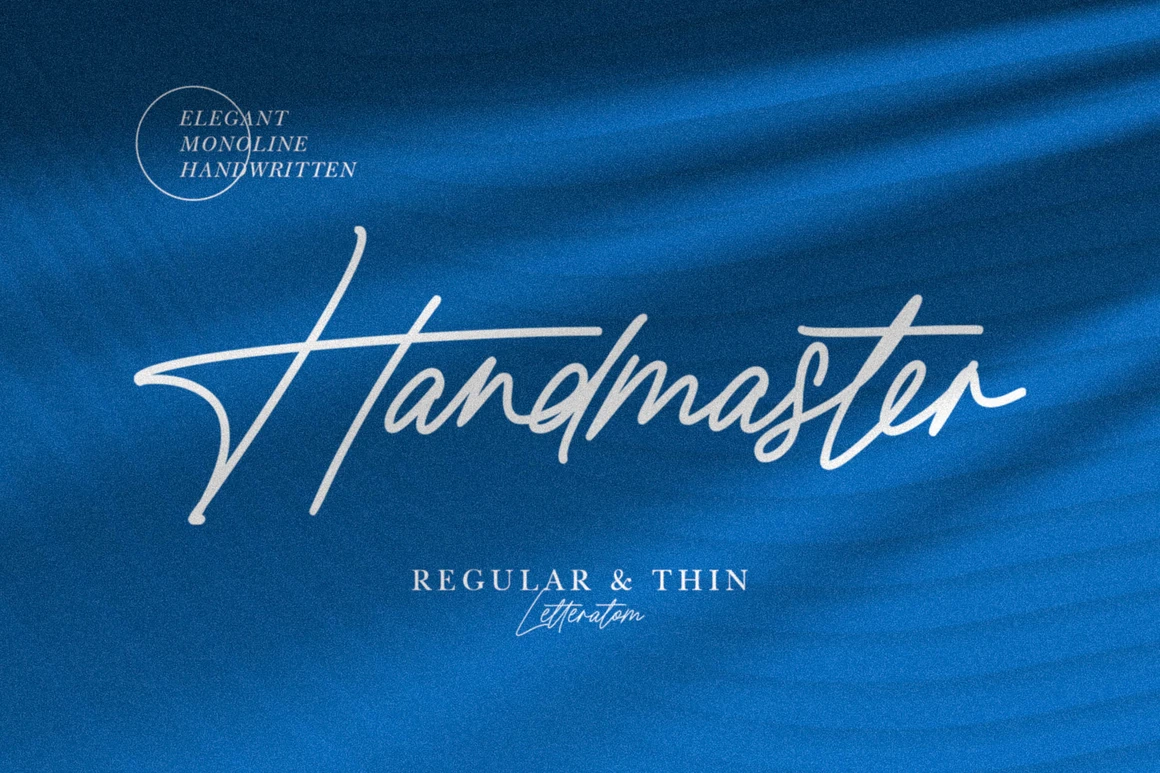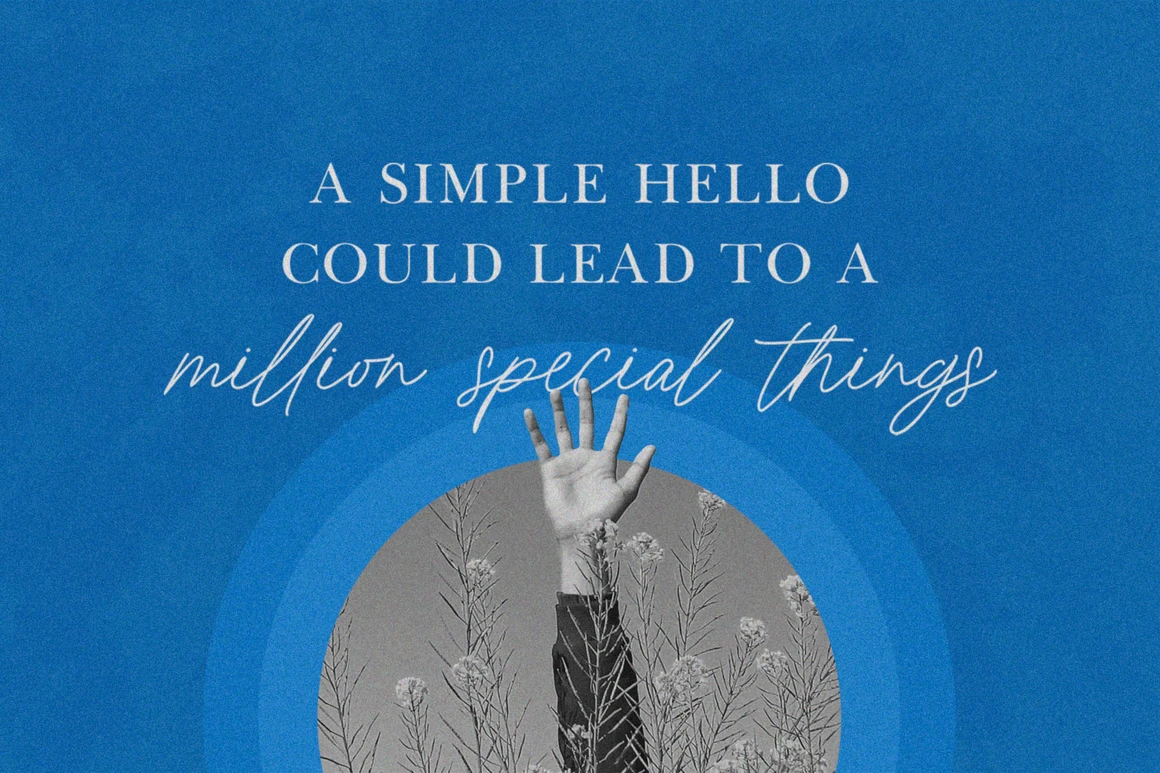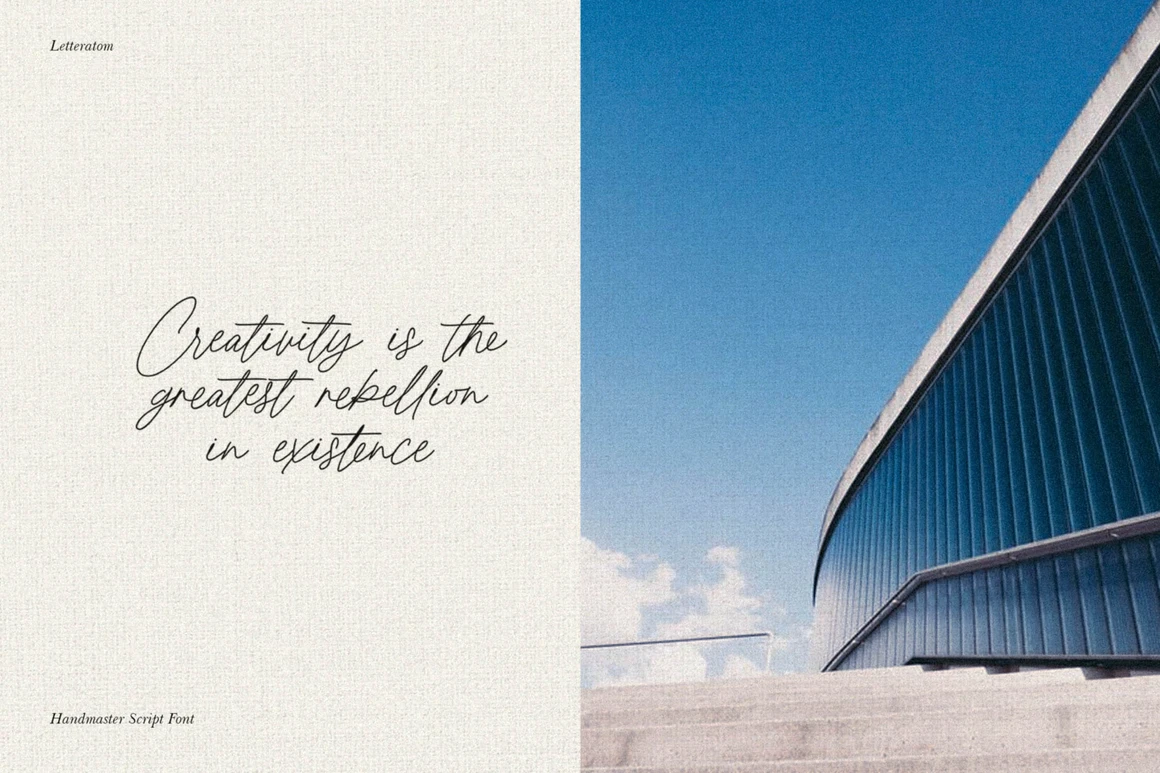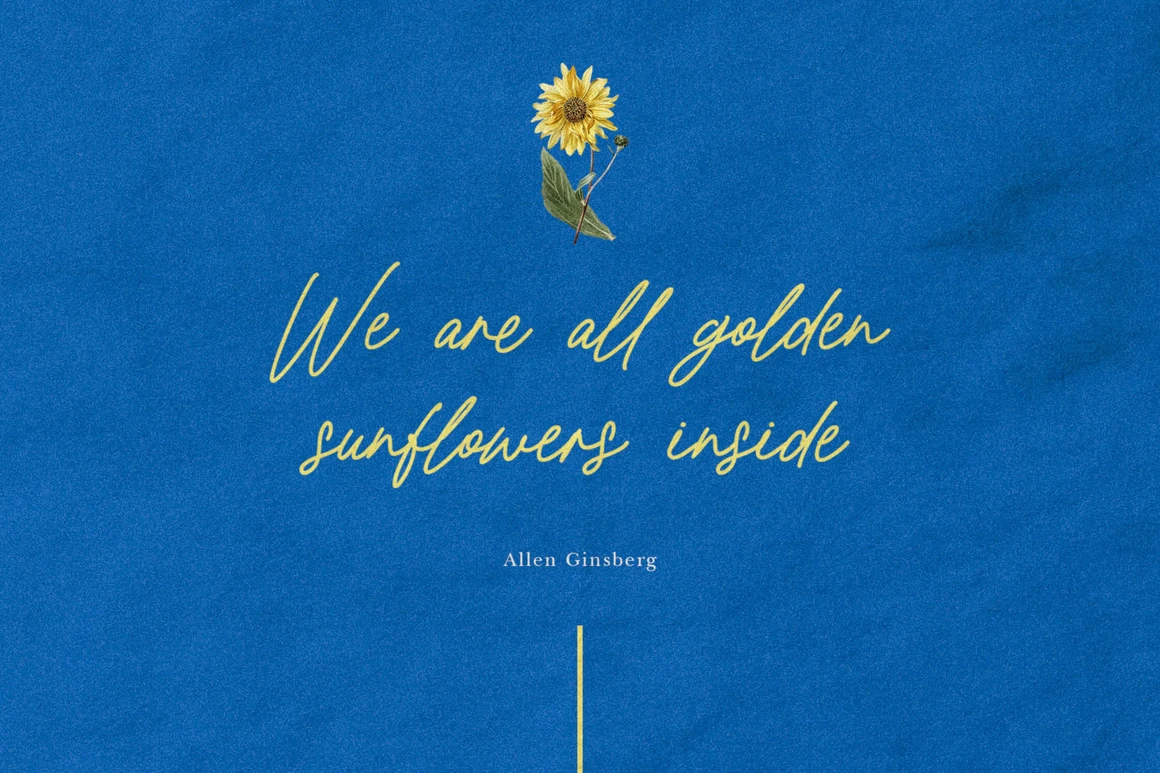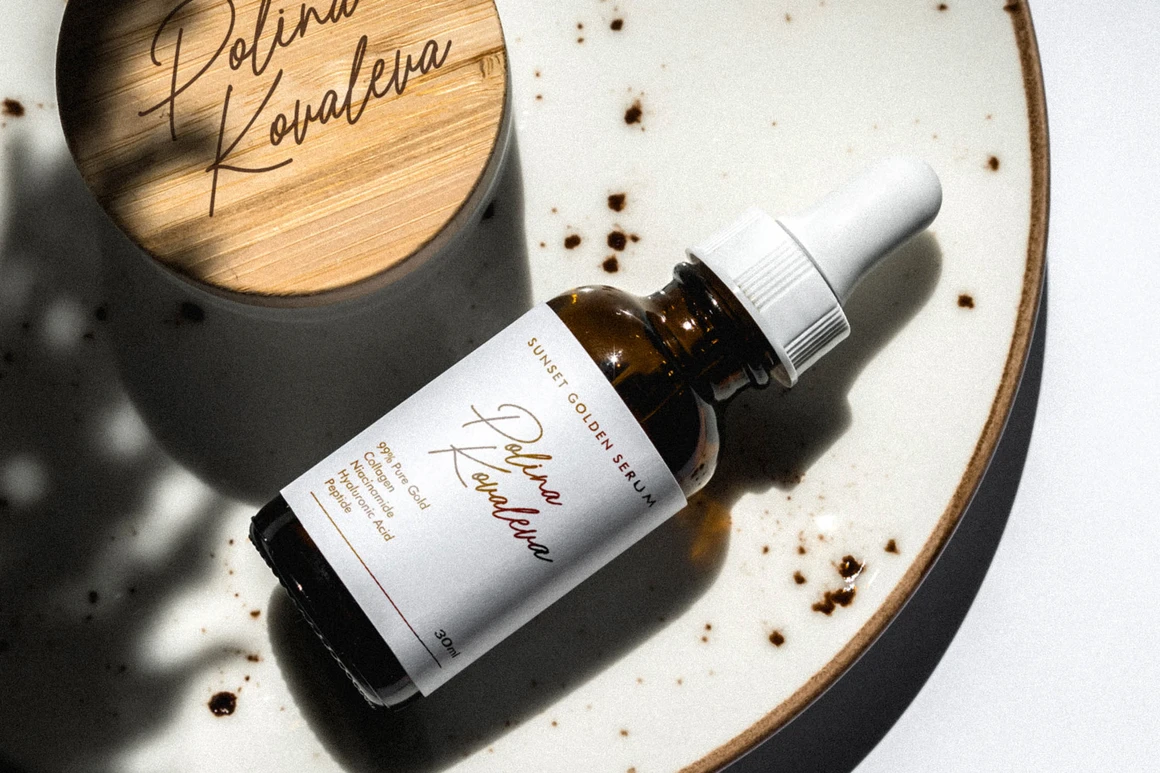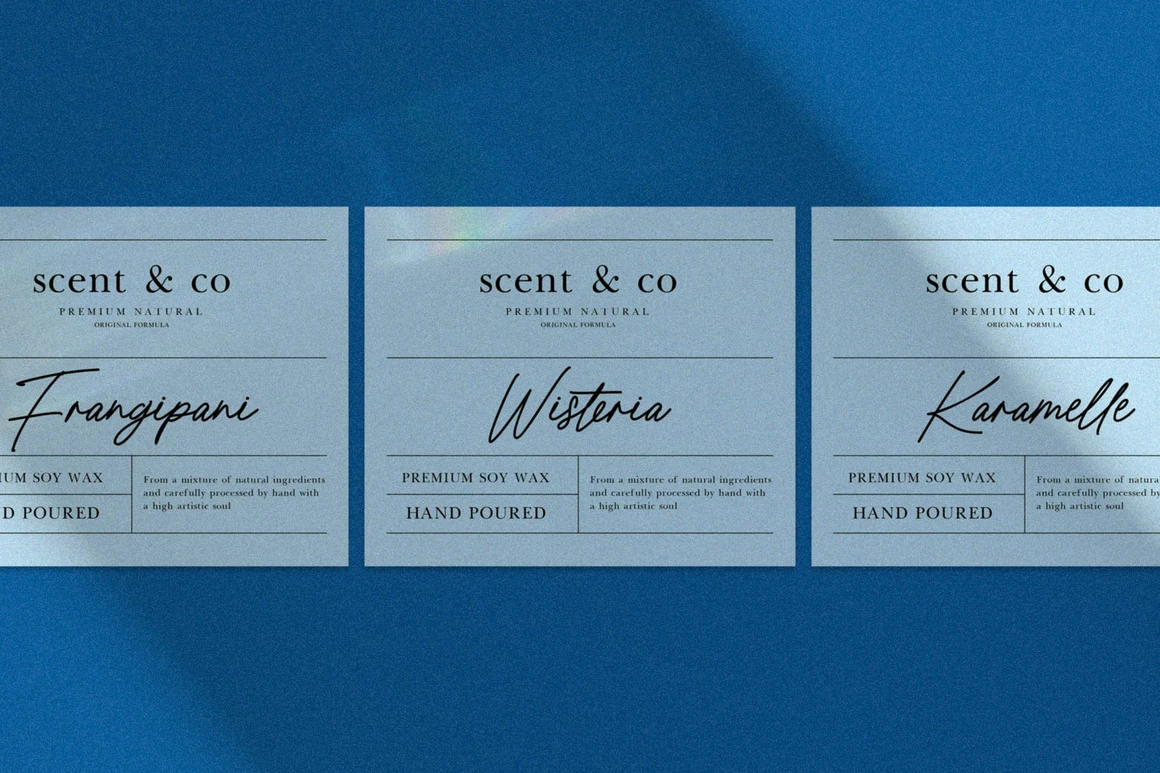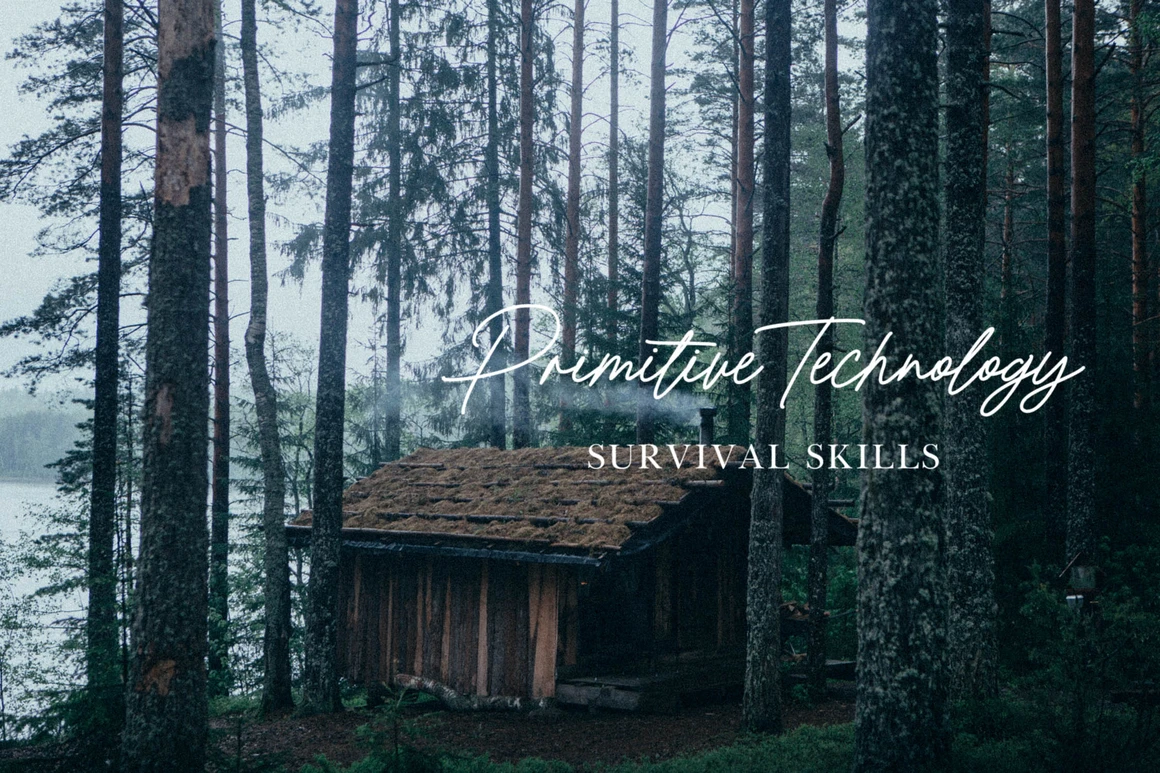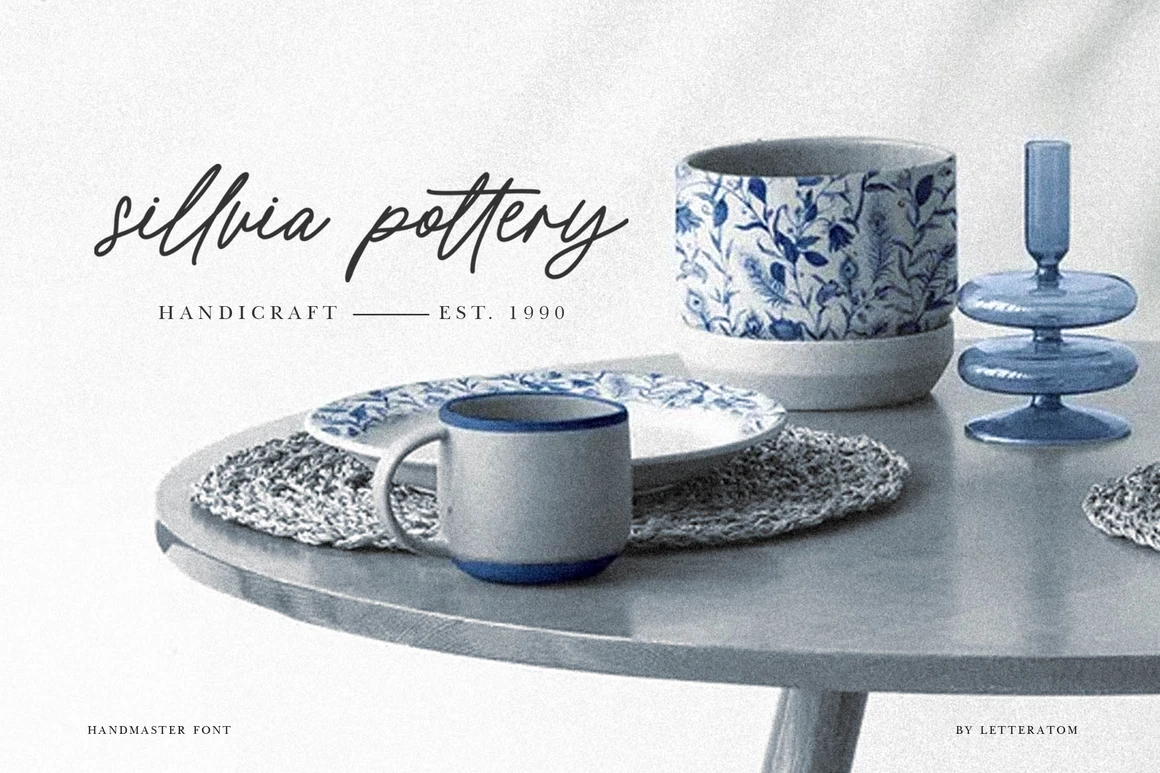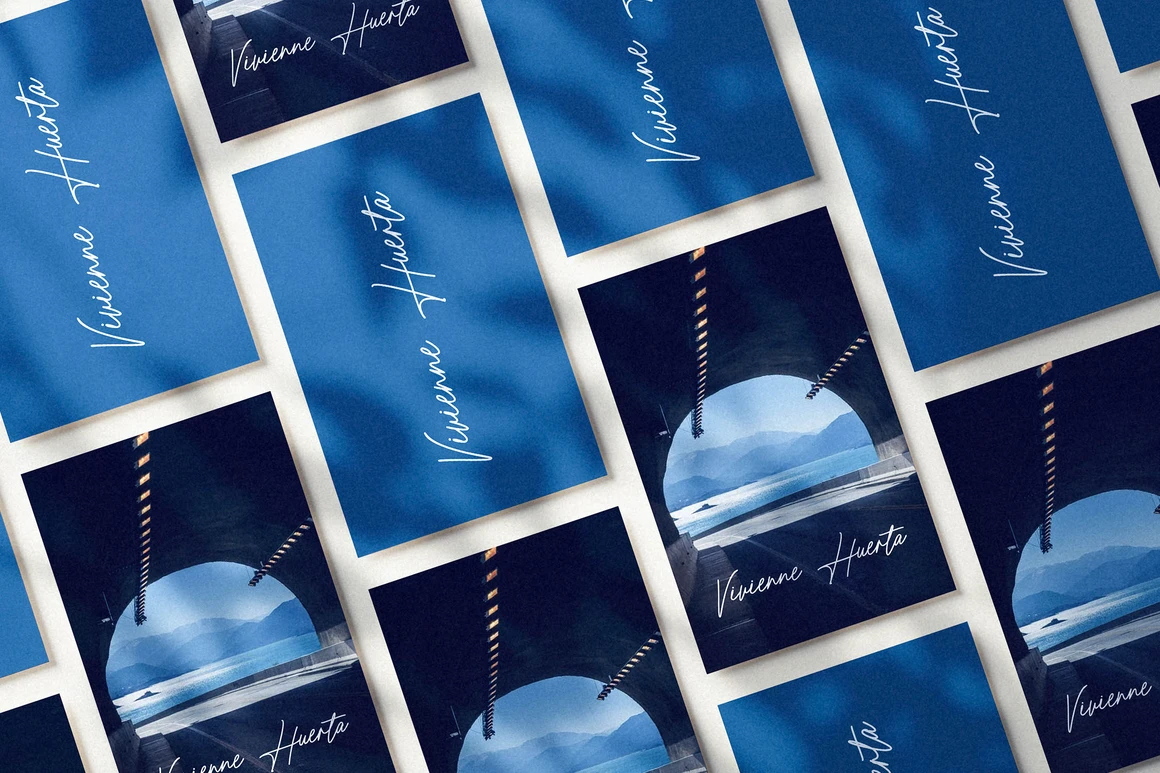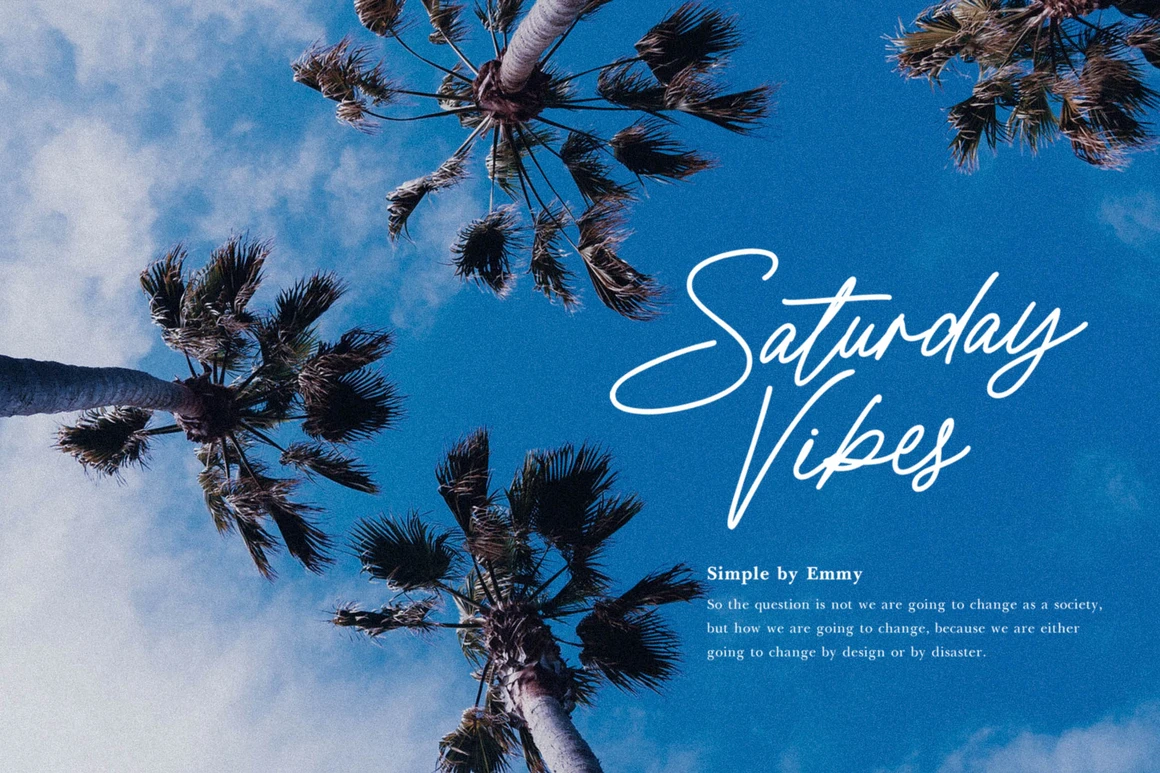
Handmaster is an elegant monoline handwriting. with 2 options regular and thin will make your project stand out, look classy, and extraordinary in any of your design projects.
Iso it looks natural and unique, perfect for branding, packaging, grating cards, website headlines, and other fantastic projects.